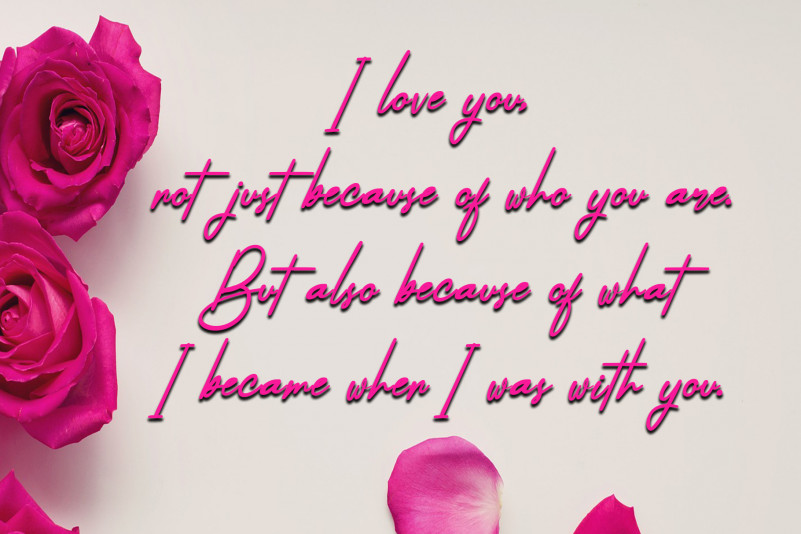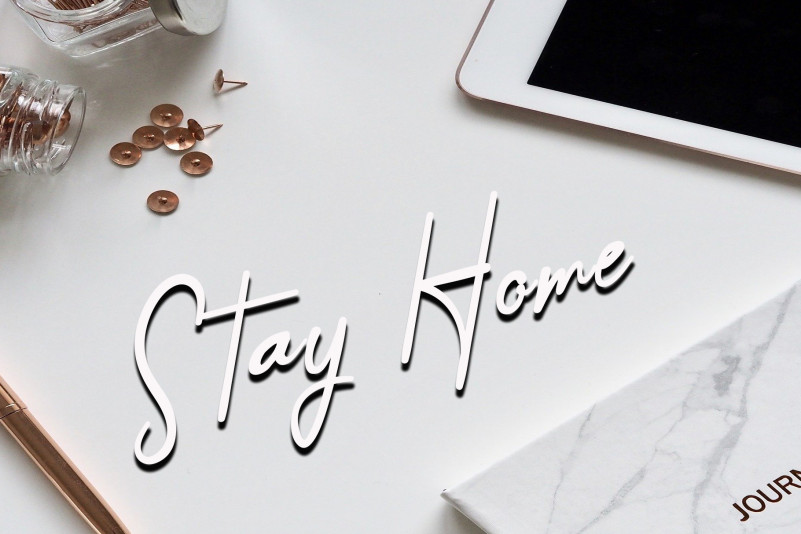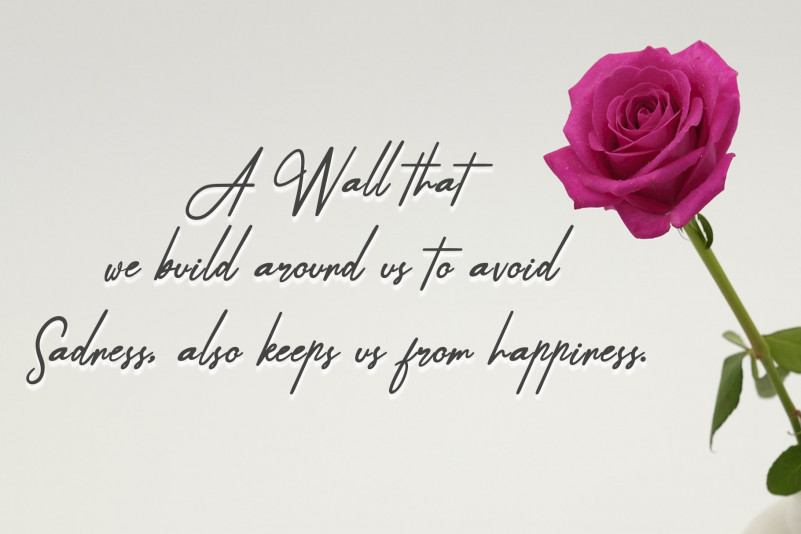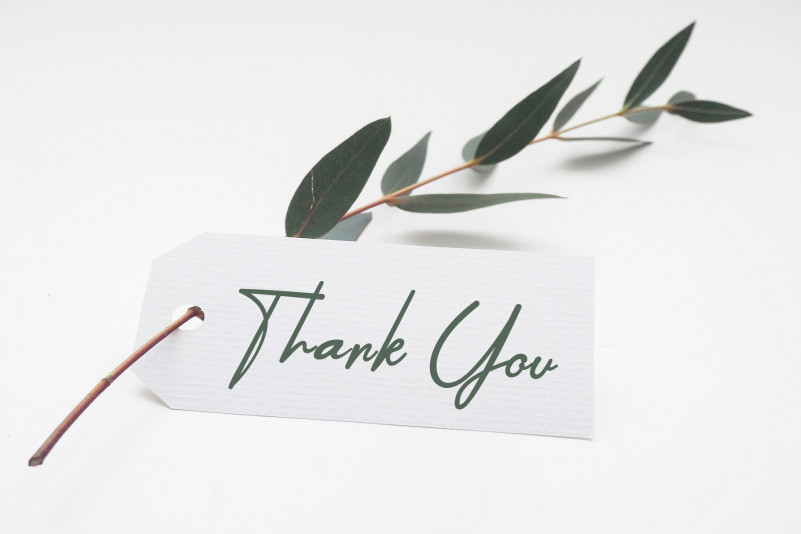
The Water Of Life Font
The Water Of Life Script Font
This is an exquisite, lovely and flowing handwritten font. It maintains its classy calligraphic influences while feeling contemporary and fresh. Fall in love with this font and bring your projects to the highest levels!